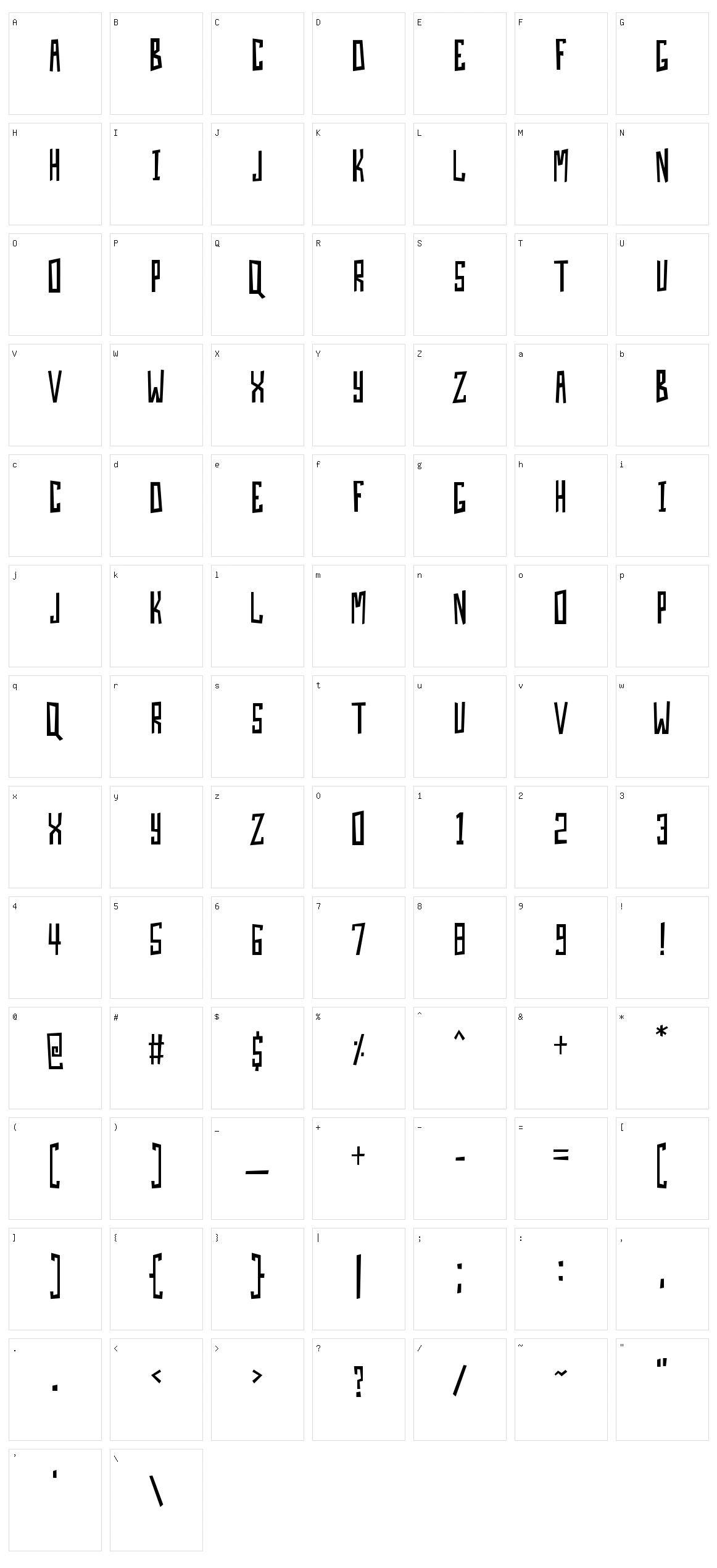
The free font Skin And Bones is carefully designed by Hawtpixel, showcasing a thoughtful balance of creativity and usability and falls under the Cartoon font style. When you download the ZIP file, it contains only 337 KB of font files, making it lightweight and quick to download. Please review the license details below to understand permitted usage and distribution rights. If license information is not available, we recommend using this font for personal projects only or contacting the author directly for commercial usage permissions.